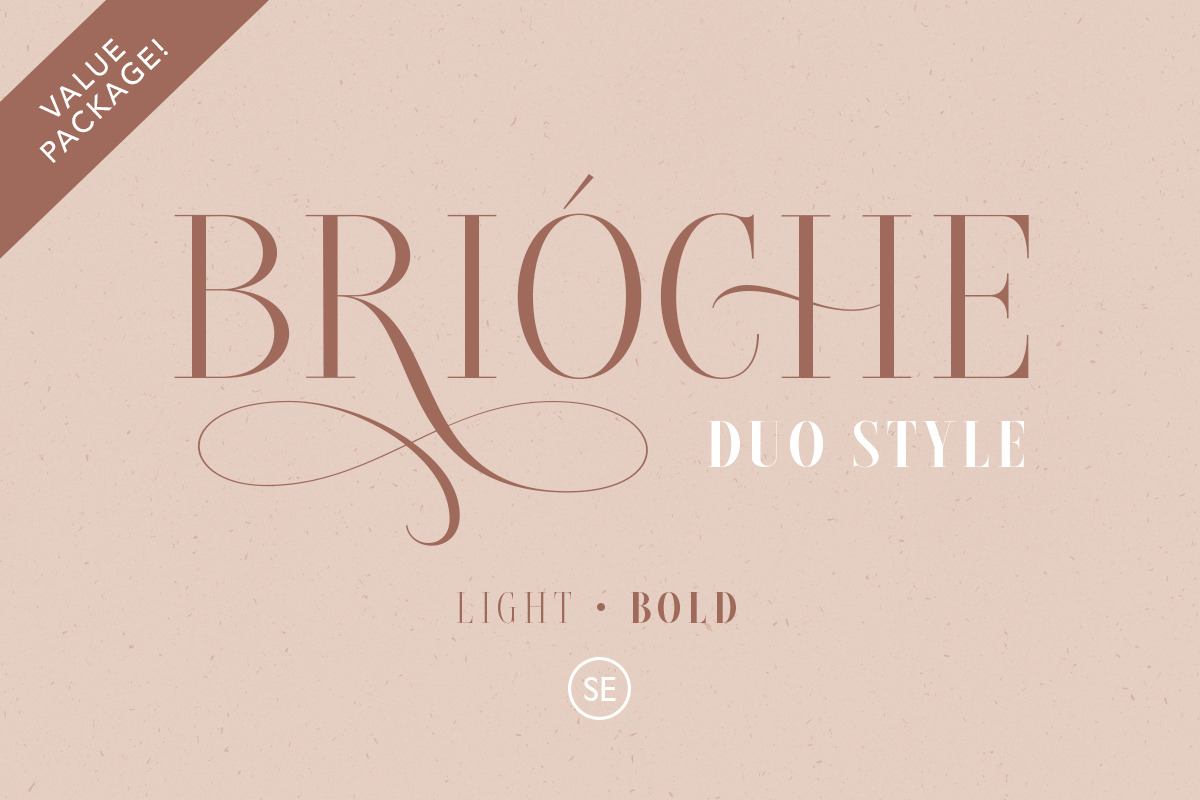
Brioche Font Free Download is a soft, elegant typeface inspired by classic serif forms with a modern twist. With its delicate curves, high contrast strokes, and refined personality, Brioche is perfect for wedding invitations, high-end branding, editorial designs, and packaging that needs a touch of sophistication and grace.
Brioche Font Free Download brings timeless beauty to your typography, blending tradition with contemporary style. Whether you’re crafting a romantic logo, designing luxury print materials, or building a stylish website header, Brioche adds a polished and graceful finish to your work. Download it today and bring a taste of elegance to your next project with Brioche.